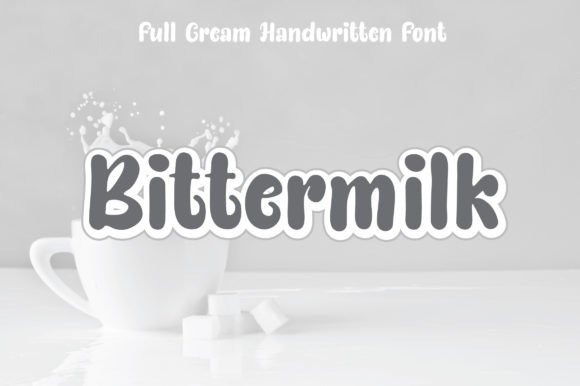
Introduction to Bittermilk Font
The Bittermilk is a cute, bold handwritten font.
It has a very natural shape and will add a striking touch to your designs .
Key Features of Bittermilk Font
Why Choose Bittermilk Font?
Bittermilk Font offers exceptional quality and versatility, making it a valuable addition to your design toolkit. Whether you’re creating for personal projects or commercial use, Bittermilk Font delivers professional results.